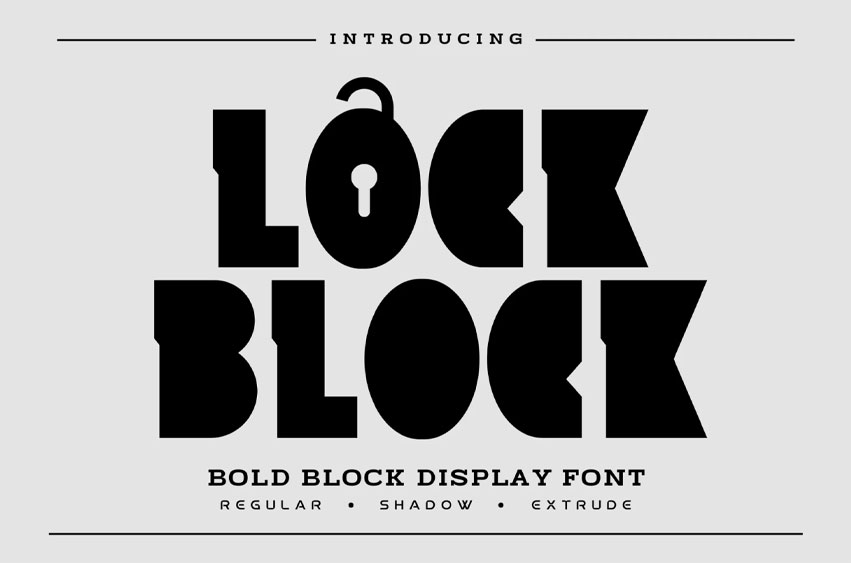
Lock Block Font
Lock Block Font is a bold block display font designed to make a powerful statement. With its strong, geometric shapes and solid structure, this font is perfect for headlines, posters, and any design that needs to grab attention. “Lock Block” delivers a striking visual impact that adds a modern and authoritative edge to your projects. Ideal for branding, logos, and bold graphic designs, “Lock Block” ensures your message is both seen and remembered.